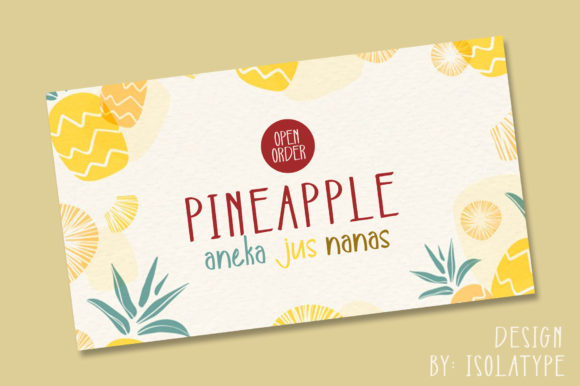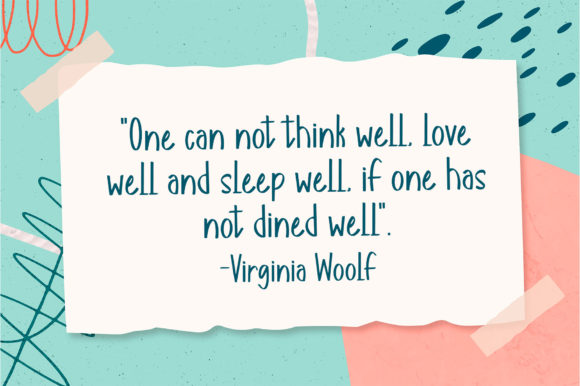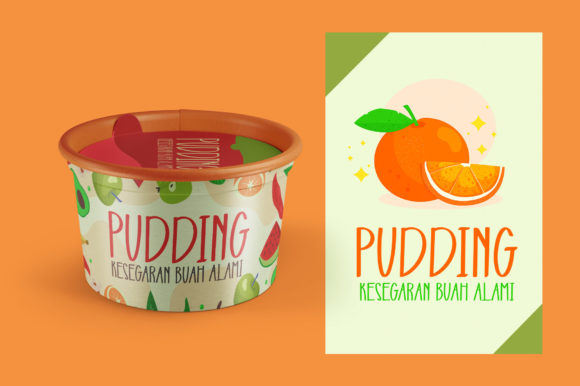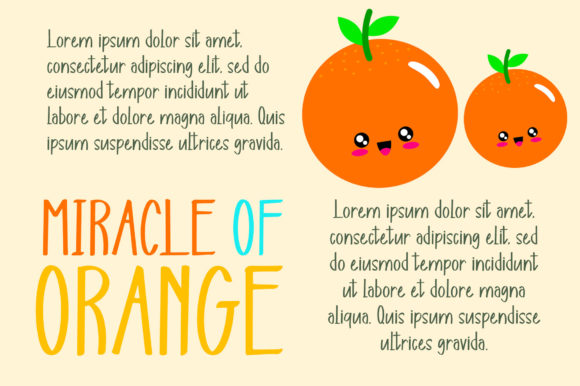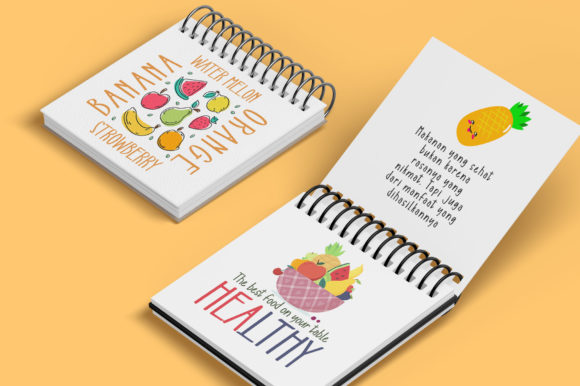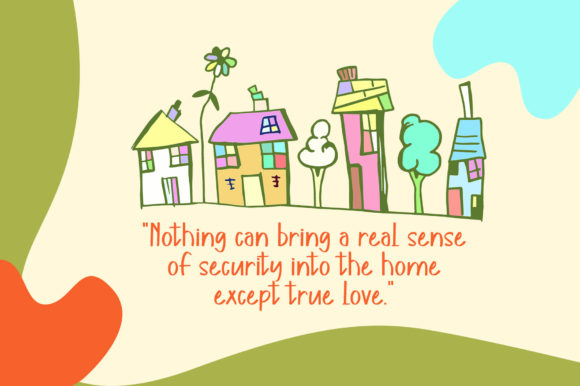
Introducing Classy Fruity Font: The Sweet and Quirky Handwritten Font
Are you tired of using the same old fonts in your designs? Do you want to add a touch of sweetness and quirkiness to your creations? Look no further than the Classy Fruity font! This handwritten font is perfect for designers and crafters who want to elevate their work and make it stand out.
The Characteristics of Classy Fruity Font
Classy Fruity is a sweet and quirky handwritten font that is sure to capture the attention of your audience. Its unique and playful design makes it perfect for a wide range of projects, from invitations and greeting cards to branding and advertising materials. The font features:
- Handwritten style: Classy Fruity has a personal and human touch, making it perfect for designs that require a personal and friendly feel.
- Quirky and playful design: The font features quirky and playful letterforms that add a touch of whimsy to your designs.
- High legibility: Despite its playful design, Classy Fruity is highly legible, making it perfect for use in a wide range of projects.
The Benefits of Using Classy Fruity Font
So, why should you choose Classy Fruity font for your next project? Here are just a few benefits of using this amazing font:
- Elevate your designs: Classy Fruity font has the potential to elevate any creation, making it perfect for designers who want to take their work to the next level.
- Versatility: This font can be used in a wide range of projects, from digital designs to print materials.
- Unique and eye-catching: Classy Fruity font is sure to grab the attention of your audience, making it perfect for designs that require a bold and eye-catching look.
How to Use Classy Fruity Font
Using Classy Fruity font is easy! Here are a few tips to get you started:
- Pair it with other fonts: Classy Fruity font pairs well with other fonts, making it perfect for use in combination with other typefaces.
- Experiment with colors: The font looks great in a wide range of colors, so don’t be afraid to experiment and find the perfect color scheme for your design.
- Use it in a variety of projects: From invitations and greeting cards to branding and advertising materials, Classy Fruity font is versatile and can be used in a wide range of projects.
Make the Most of Classy Fruity Font
To make the most of Classy Fruity font, here are a few tips:
- Be creative: Don’t be afraid to think outside the box and come up with unique and creative designs.
- Experiment with different styles: Try out different styles and techniques to find the one that works best for your design.
- Have fun: Most importantly, have fun with the font! Classy Fruity font is designed to be enjoyed, so don’t be afraid to let your personality shine through in your designs.
In conclusion, Classy Fruity font is a sweet and quirky handwritten font that is sure to elevate any creation. With its unique and playful design, high legibility, and versatility, this font is perfect for designers and crafters who want to add a touch of sweetness and quirkiness to their work. So, enjoy this font and make it the best project!
Get Ready to Create Something Amazing!
With Classy Fruity font, the possibilities are endless! Get ready to create something amazing and take your designs to the next level. Whether you’re a seasoned designer or just starting out, this font is sure to inspire you and help you create something truly special.